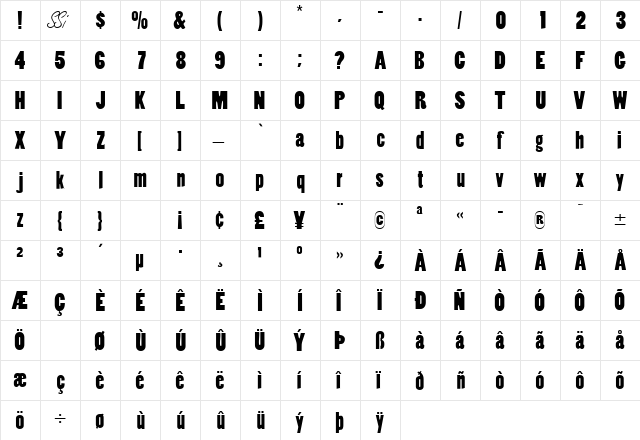
SlotSSK Regular
Design Context for SlotSSK Typeface
SlotSSK takes a measured approach to typography — its balanced proportions and neutral character make it a reliable workhorse for both digital and print work.